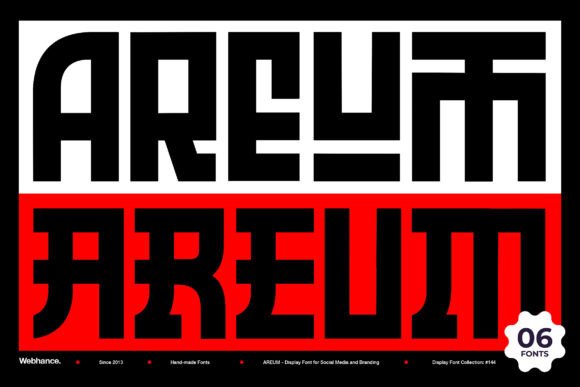
Introducing Areum Font: A Bold, Modular Display Typeface Inspired by Korean Hangul Characters
In the world of typography, fonts play a crucial role in conveying messages, expressing emotions, and creating visual identities. Among the numerous fonts available, Areum Font stands out as a unique and captivating display typeface that seamlessly blends traditional Korean aesthetics with modern design principles. In this article, we’ll delve into the world of Areum Font, exploring its inspiration, design, features, and uses.
The Inspiration Behind Areum Font
Areum Font is named after the Korean word “아름” (Areum), which means “beauty.” This name perfectly reflects the font’s fusion of cultural depth and modern design. The font’s creator drew inspiration from the clean geometry and structured elegance of Korean Hangul characters, which are renowned for their simplicity, balance, and harmony.
Korean Hangul characters have a unique structure, consisting of square forms, symmetrical shapes, and a grid-based system. These characteristics have been skillfully incorporated into Areum Font, giving it a distinctive and captivating appearance. The font’s design is a thoughtful blend of traditional Korean aesthetics and modern typography, making it an excellent choice for designers seeking to create a strong visual identity.
Design and Features of Areum Font
Areum Font is a bold, modular display typeface that boasts a range of features, making it an ideal choice for various design applications. The font family consists of three main styles: Regular, Edge, and Horizon, each with its italic counterpart, totaling six fonts. This range of styles offers flexible typographic combinations that can be used to create a wide range of visual effects, from clean and minimal to bold and expressive.
The font’s design is characterized by:
- Square forms: Areum Font features square forms, which provide a sense of stability and balance.
- Architectural balance: The font’s design is based on a grid system, ensuring perfect harmony and balance.
- Clean geometry: Areum Font’s geometric shapes and clean lines create a modern and sophisticated appearance.
Uses of Areum Font
Areum Font is an excellent choice for various design applications, including:
- Branding: The font’s bold and modern design makes it perfect for creating a strong visual identity for brands.
- Poster headlines: Areum Font’s large size and clear readability make it ideal for poster headlines.
- Album covers: The font’s unique design and bold style make it a great choice for album covers.
- Editorial layouts: Areum Font can be used to create visually appealing editorial layouts, such as magazine articles and blog posts.
The Benefits of Using Areum Font
Areum Font offers several benefits to designers, including:
- Unique design: The font’s distinctive design sets it apart from other fonts, making it an excellent choice for designers seeking to create a unique visual identity.
- Flexibility: Areum Font’s range of styles and flexibility make it suitable for various design applications.
- Cultural significance: The font’s inspiration from Korean Hangul characters adds a touch of cultural depth and significance to designs.
Areum Font is a bold, modular display typeface that seamlessly blends traditional Korean aesthetics with modern design principles. Its unique design, flexibility, and cultural significance make it an excellent choice for designers seeking to create a strong visual identity. With its range of styles and uses, Areum Font is an excellent addition to any design project.
Areum Font Family
- Regular
- Regular Italic
- Edge
- Edge Italic
- Horizon
- Horizon Italic